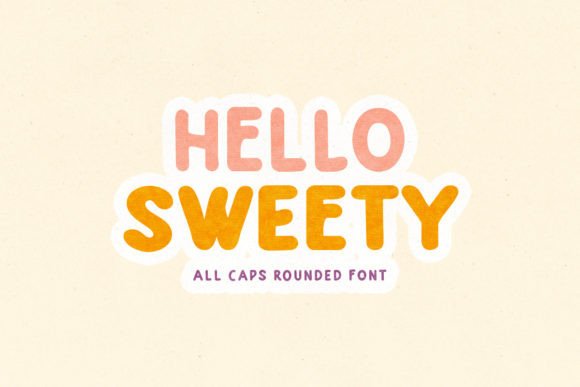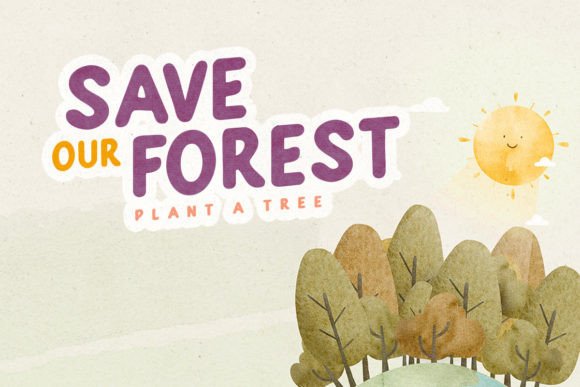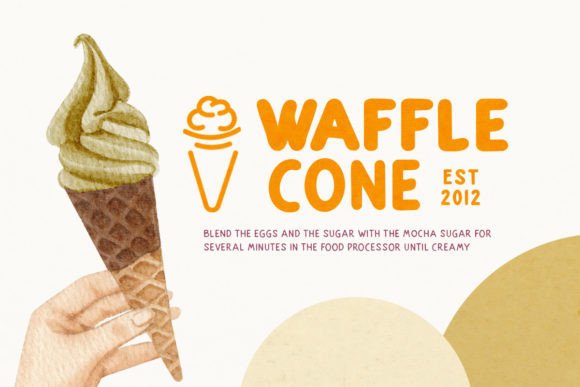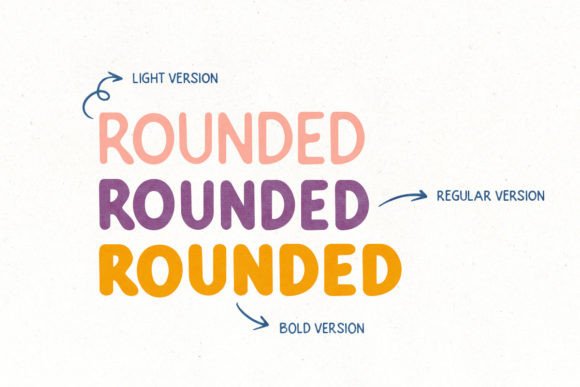
Hello Sweety Font: A Cute Display Font for Playful Designs
About the Hello Sweety Font
The wait is over! The incredible Hello Sweety Font is now available for your design toolkit. Hello Sweety is a cute and rounded all-caps sans serif font. This font is so friendly and fun that it can be used for any purpose such as logos, brands, and quotes. Have fun with this unique typeface, and explore its endless possibilities!
Hello Sweety’s rounded forms and all-caps style make it ideal for headlines, short playful taglines, and branding elements where a friendly, approachable feel is desired. It works exceptionally well on packaging for children’s products or in social media graphics. However, its limited character set and all-caps nature make it unsuitable for body text or lengthy paragraphs. Avoid using it in UI contexts requiring high readability.
Pairing Hello Sweety with a clean sans-serif like Open Sans for body copy creates a balanced and professional contrast. For a more playful feel, consider pairing it with a script font like Great Vibes for added personality in logos or invitations. A geometric sans-serif could also work well, adding a modern edge.
Its core personality is undeniably cheerful and approachable, making it a strong choice for brands targeting younger demographics or those emphasizing fun and approachability.
Hello Sweety Font Usage Examples
Hello Sweety Font Example